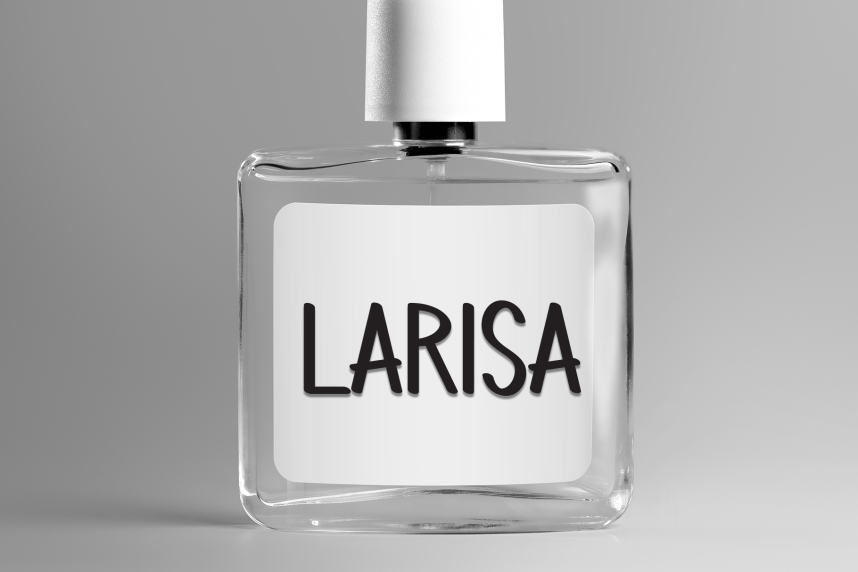
Coffee Shop Handmade Font
Coffee Shop Handmade Font is a sweet and friendly handwritten display font. Cute and fun, this font is ideal for writing wedding invitations, cards, or any other design that might need a playful touch!